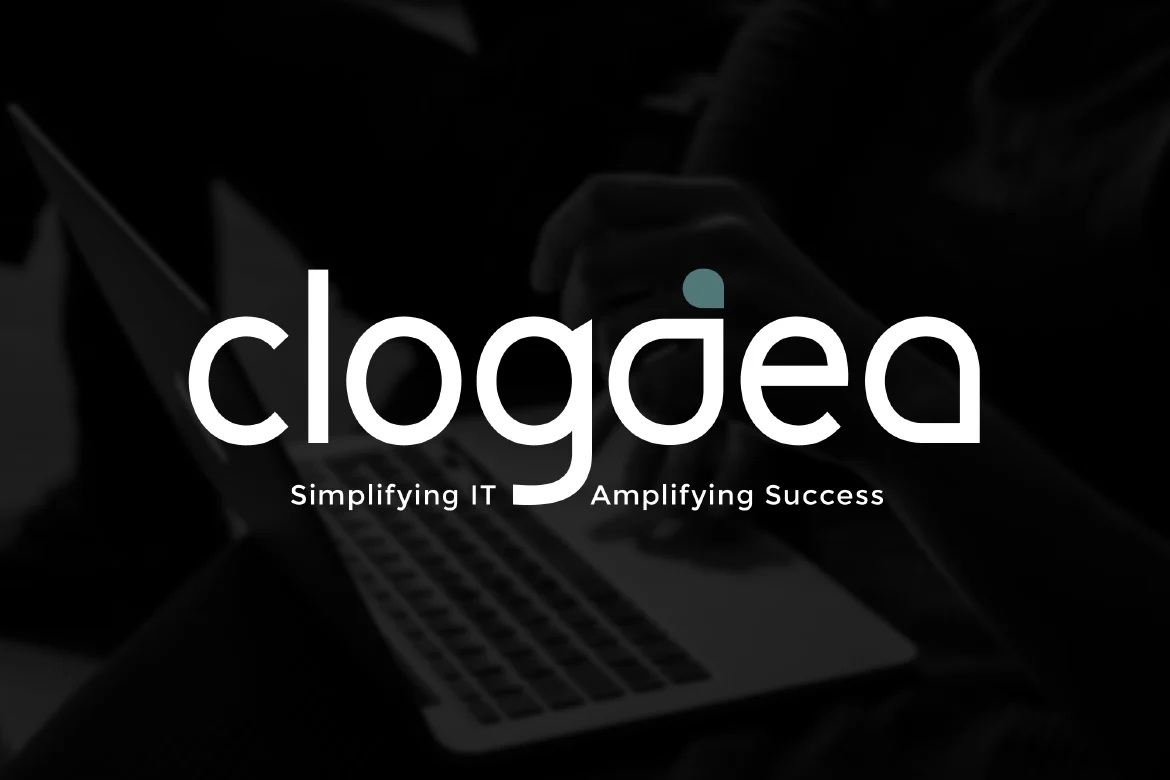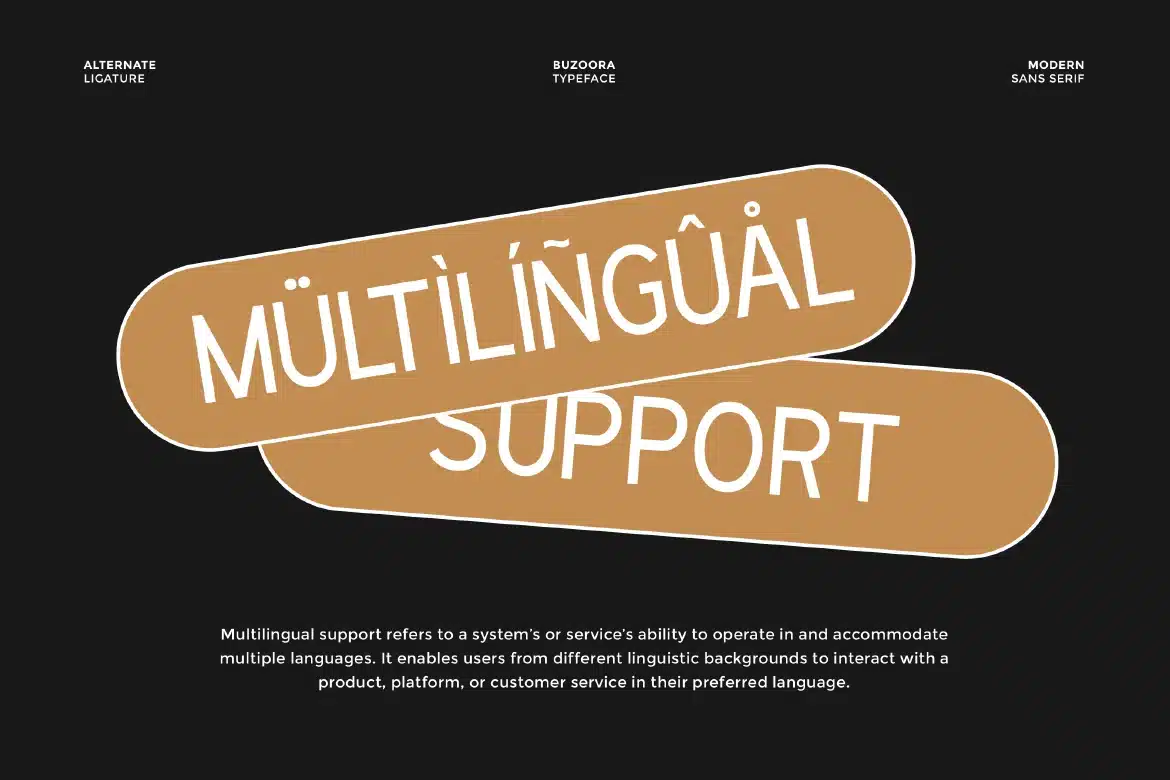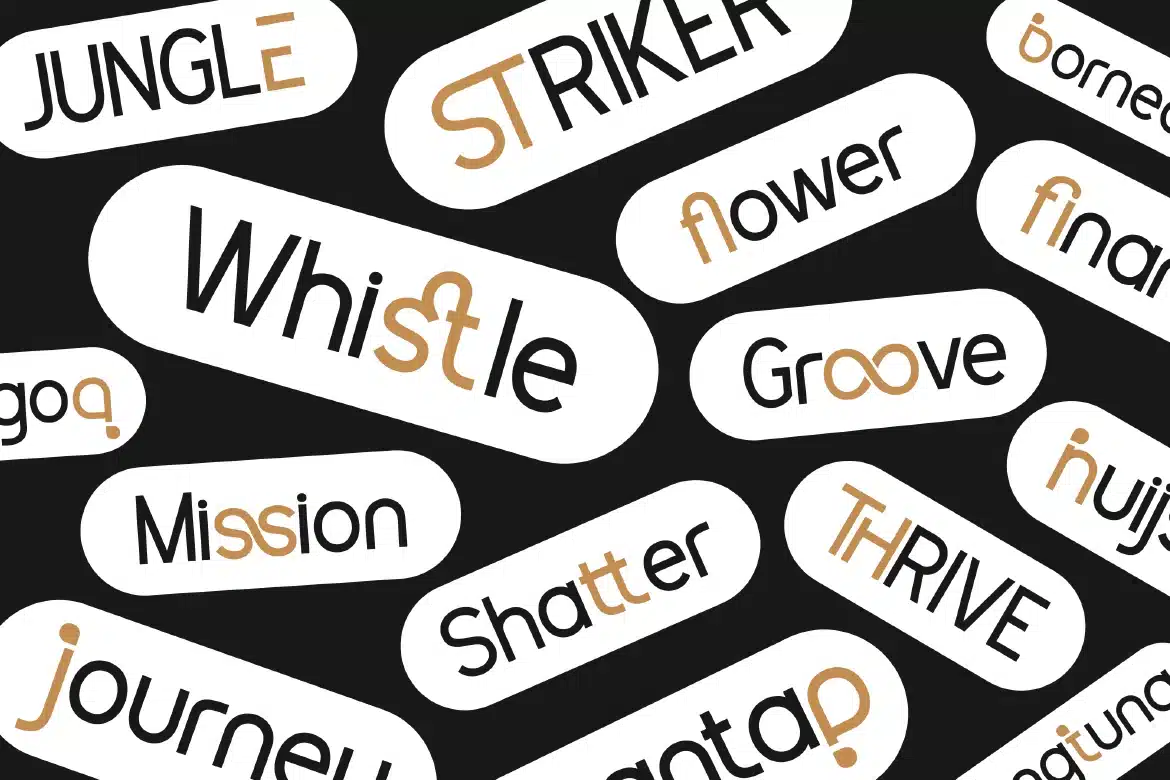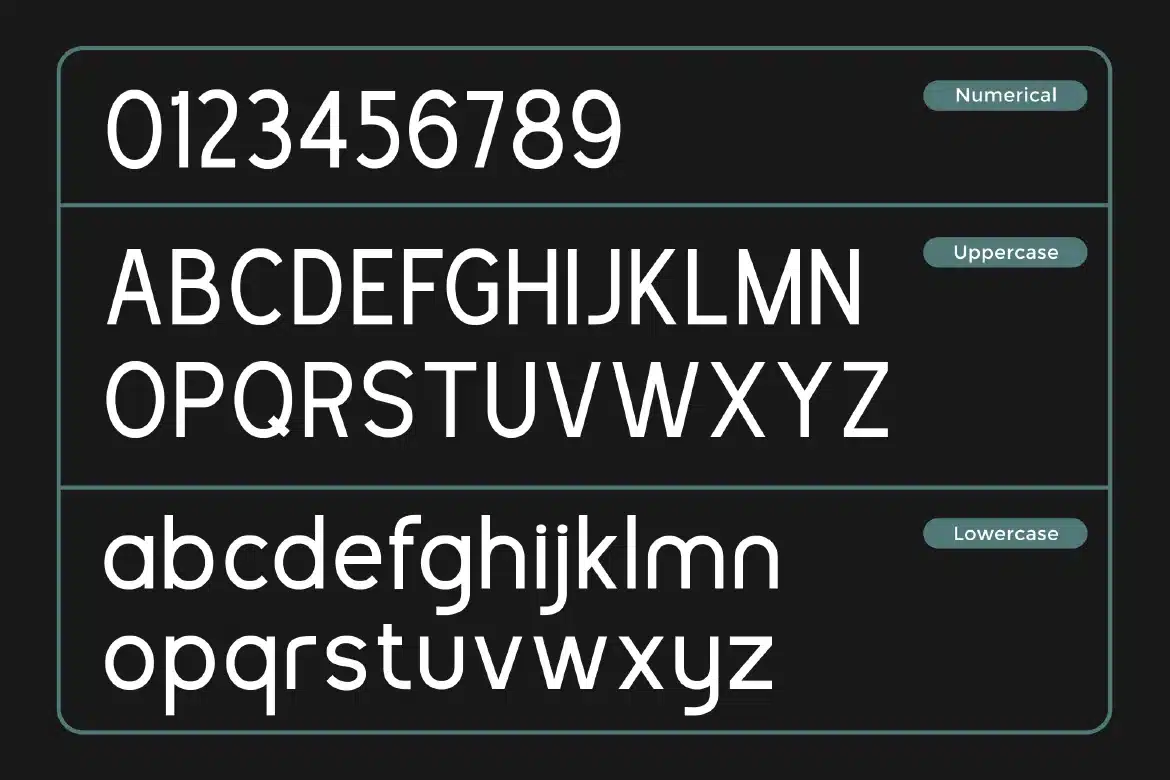
Modern Bold Buzoora Font
Buzoora – Bold & Modern Display Font
Buzoora is a bold and stylish display font crafted to make a lasting impression. With its clean curves, sharp angles, and commanding letterforms, Buzoora strikes the perfect balance between modern elegance and powerful design. Each character is meticulously designed to ensure maximum visual impact, making it an excellent choice for designers seeking a font that exudes confidence and creativity.
Whether you're creating attention-grabbing headlines, eye-catching posters, or building a strong brand identity, Buzoora delivers clarity, strength, and versatility. Its unique structure adapts seamlessly across digital and print media, ensuring your message always stands out.
Font Features:
- Uppercase & lowercase letters
- Numbers & basic punctuation
- Alternates & ligatures
Why Choose Buzoora:
- Strong and contemporary look that elevates any design
- Perfectly suited for large-scale use such as headlines and titles
- Smooth readability with a distinctive personality
- Ideal for both minimalist and expressive layouts
Perfect for:
Posters, branding, editorial design, packaging, social media graphics, web banners, and high-impact visual identities.